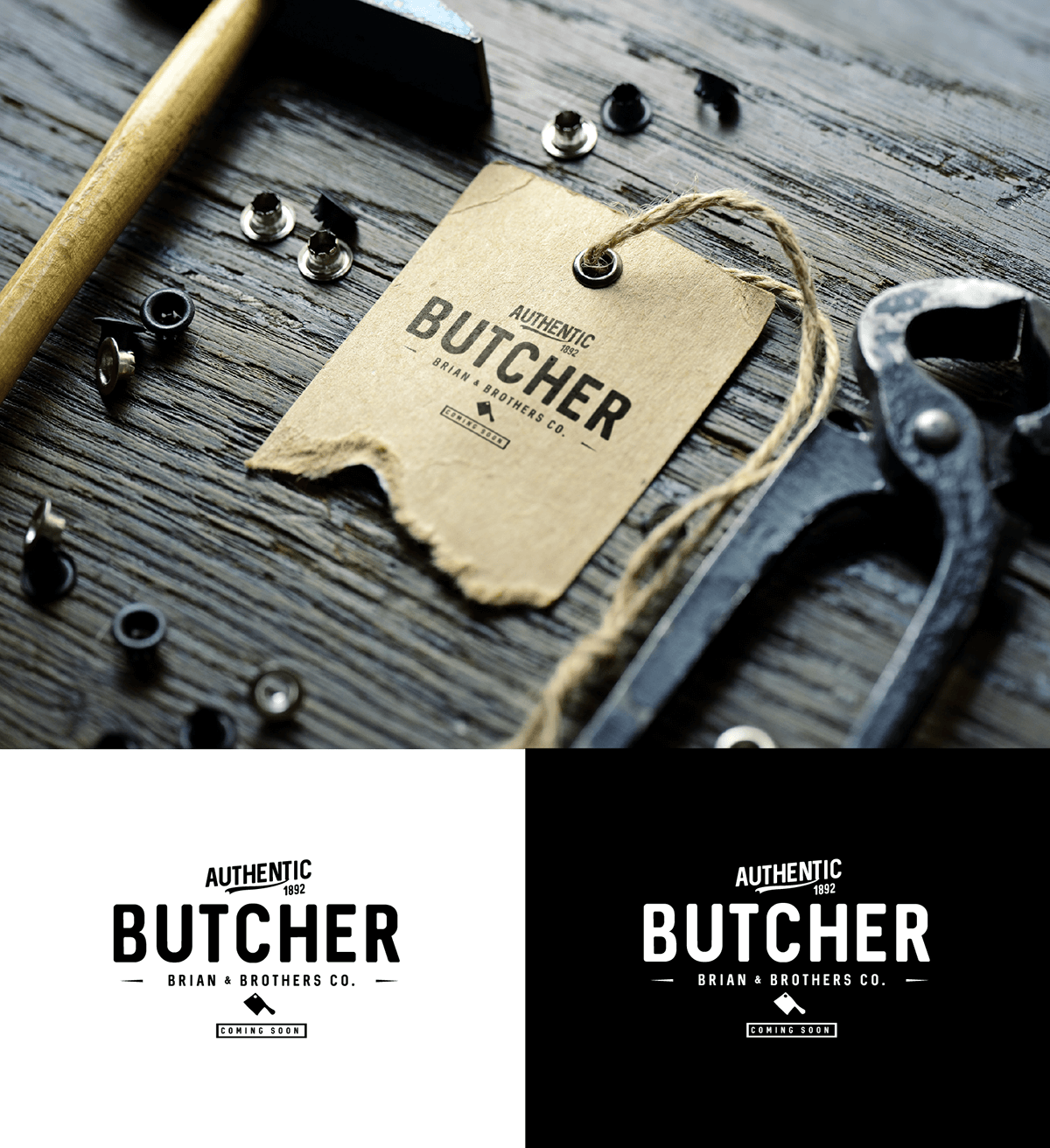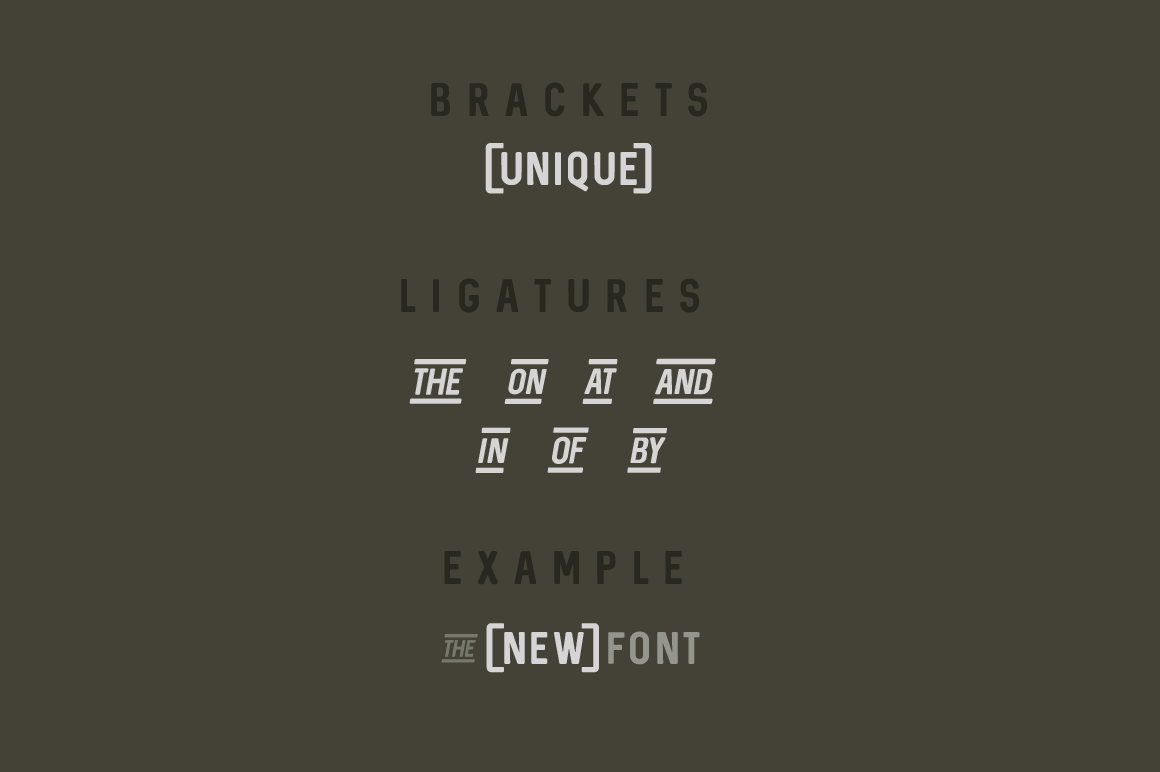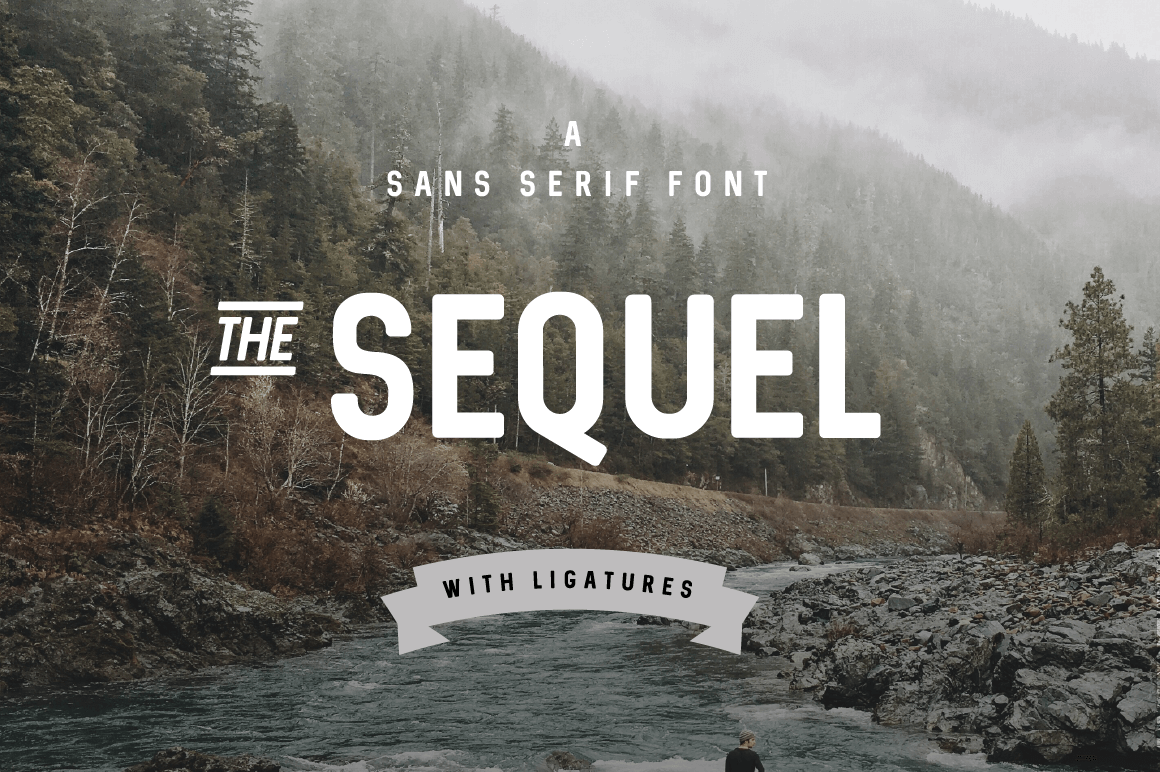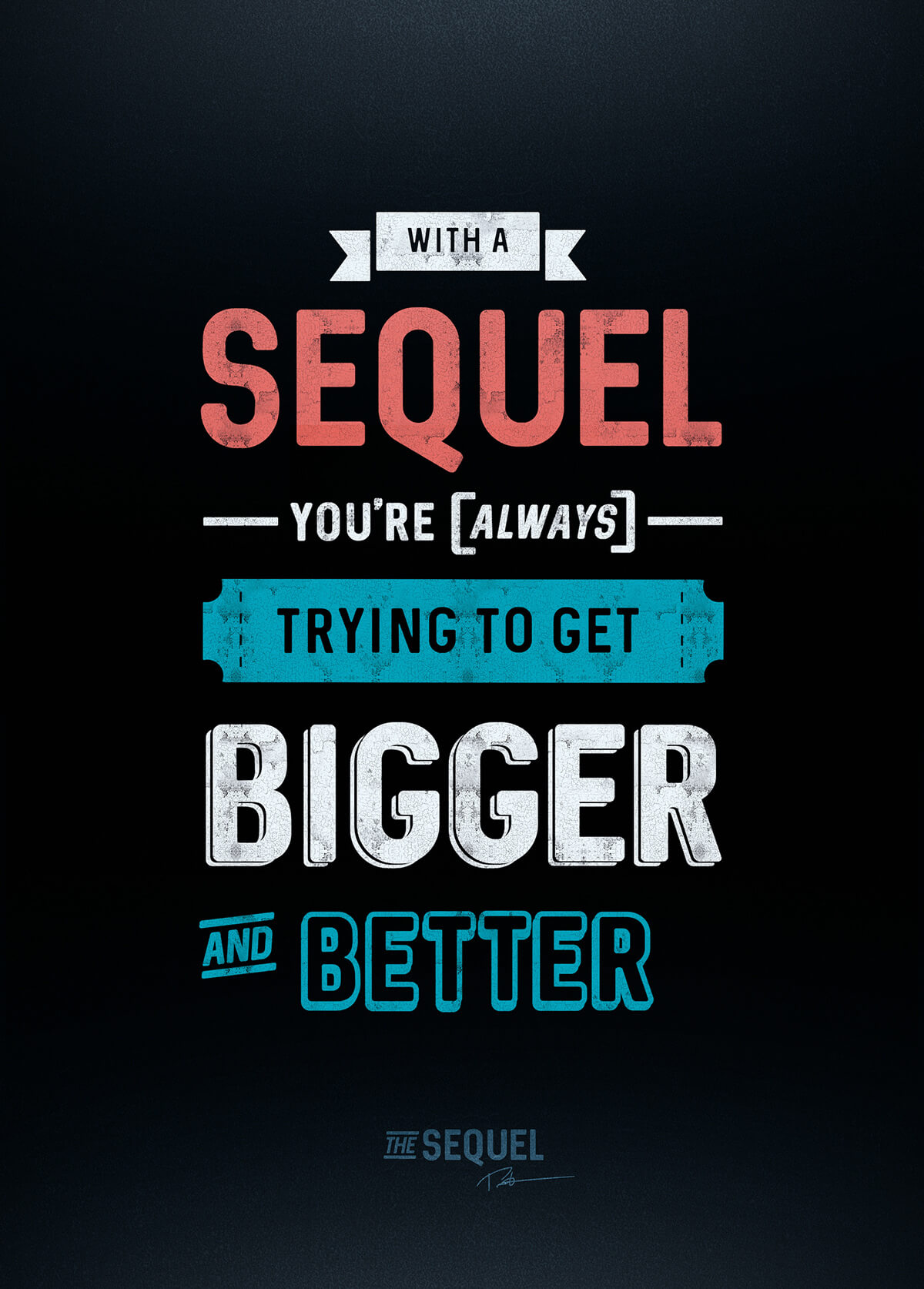
Sequel free font is sans serif ideal for headlines it comes with some cool ligatures for “The” and “of”, to use this you just need to type ‘the’ or ‘of” and it automatically converts it to ligatures. It’s pretty cool as you see in the examples made by the author.
Sequel free font